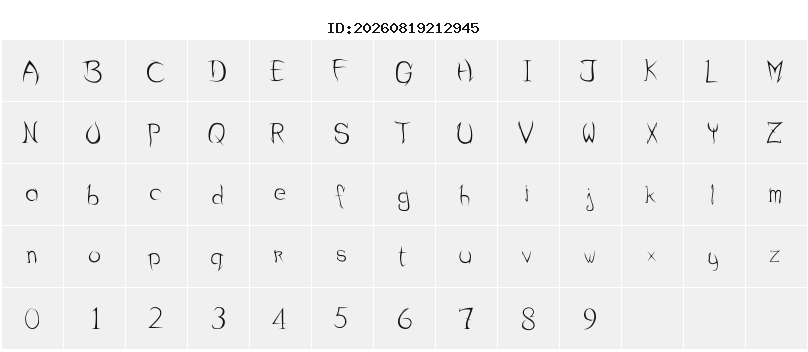
SharpCurve Preview
• Font Name: SharpCurve
• Full Font Name: SharpCurve
• Version: Version 1.00 July 14, 2009, initial release
About SharpCurve.ttf
SharpCurve.ttf is a modern, elegant sans-serif font designed for ultimate readability and visual harmony. Perfect for branding, headlines, web design, and print materials.